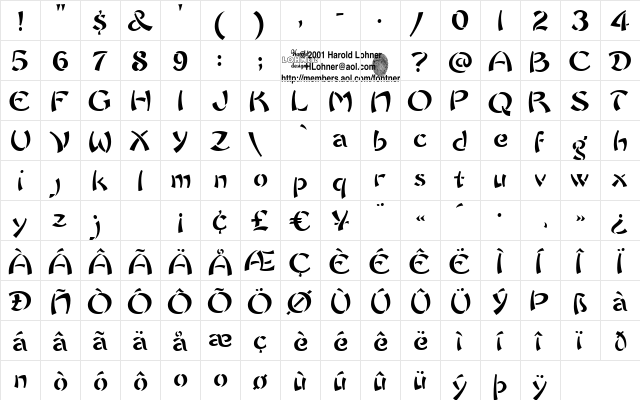
Chow Fun Regular
Design Context for Chow Fun Typeface
Chow Fun trades formality for fun, with bouncy, characterful letterforms that bring warmth and energy to any project.
Font Pairing: Pairs well with a rounded or humanist sans for body copy, maintaining the friendly tone without relying on Chow Fun to carry extended reading.
Pro Tip: Avoid using Chow Fun for long passages of text — it works best for headlines, labels, and short calls to action.